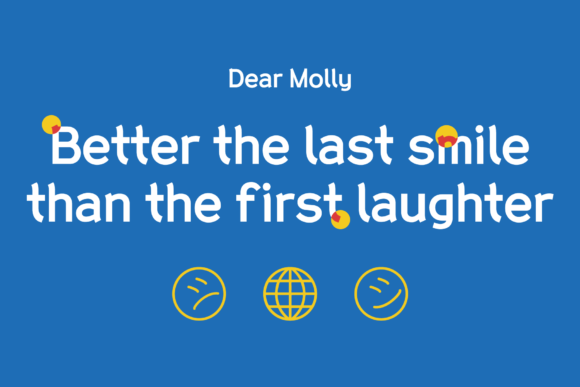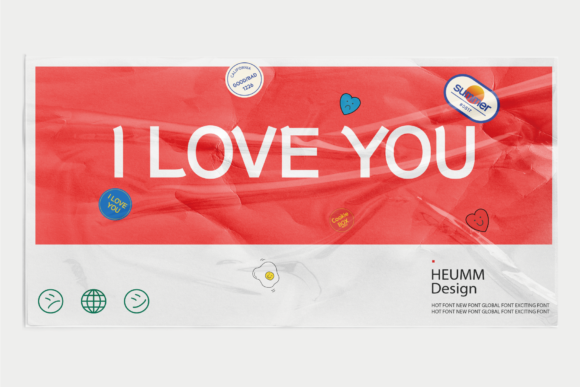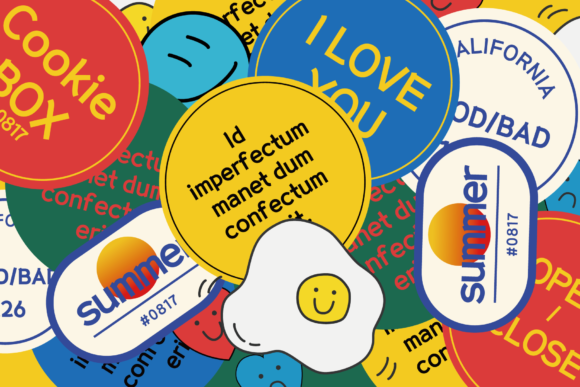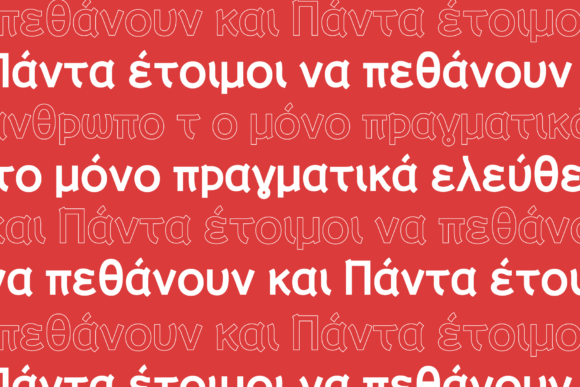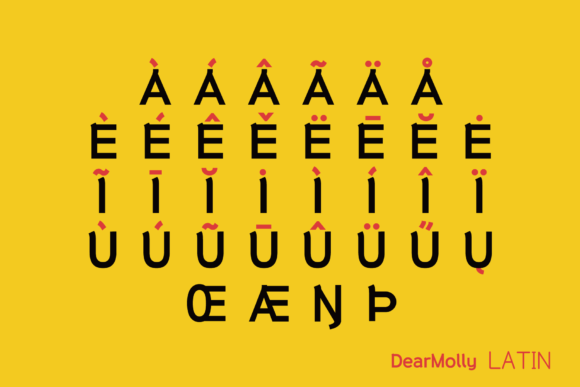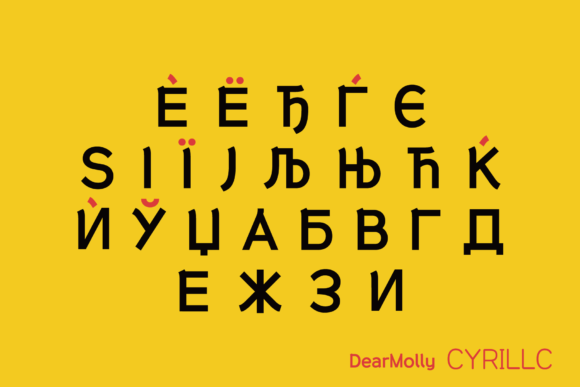
Introduction to HU Dear Molly Font Font
Fonts play a crucial role in design, and the HU Dear Molly Font font is a typeface that brings both character and versatility to any project. Whether you’re working on a branding project, a website, or a print design, the HU Dear Molly Font font offers a unique style that can elevate your work.
| 📌 Font Name | HU Dear Molly Font |
| 👤 Author | heummdesign |
HU Dear Molly is a cool and bold display font.
It is perfect for any branding project such as logos, t-shirt printing, creative products, and more .
Key Features of HU Dear Molly Font Font
Why Choose HU Dear Molly Font Font?
The HU Dear Molly Font font is more than just a typeface – it’s a design tool that helps you communicate your message with style and clarity. Its unique character set and versatile design make it suitable for a wide range of applications, from elegant invitations to bold headlines.
With its carefully crafted letterforms and balanced proportions, the HU Dear Molly Font font ensures readability and visual appeal across all mediums.
What makes HU Dear Molly Font font special?
The HU Dear Molly Font font stands out with its unique design, exceptional readability, and versatility across various design applications.